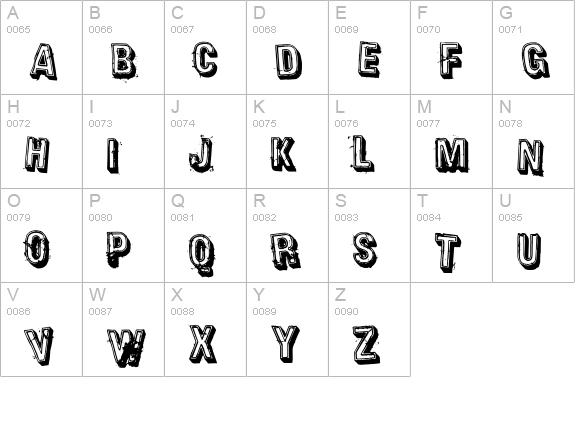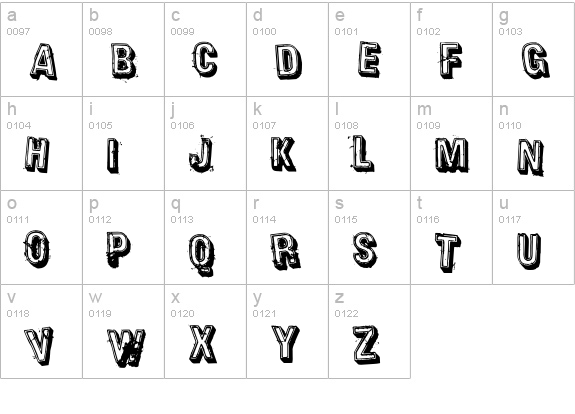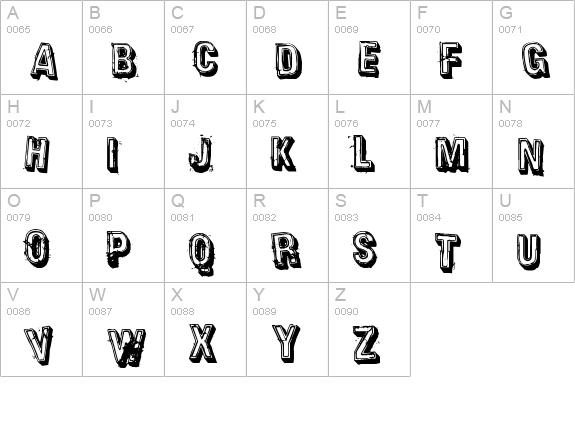
Heavy Rotation is a heavy, high-impact variant in the Heavy typeface family \xE2\x80\x94 well suited to high-impact headlines, posters, and display advertising.
Introducing Heavy Rotation, a bold and commanding font that will make your designs stand out from the crowd. This captivating typeface exudes strength and power, with its thick, robust letterforms that demand attention. Each character is meticulously crafted, featuring strong lines and sharp angles that give it a distinct and modern appeal. With Heavy Rotation, your designs will become a force to be reckoned with. Whether you're creating eye-catching posters, impactful headlines, or attention-grabbing logos, this font will make a lasting impression on your audience. Its versatility allows it to be used in various design projects, from branding and advertising to editorial and web design. But what sets Heavy Rotation apart is not just its remarkable aesthetics, it's also the fact that it is freely available to download at FontsMarket.com. That's right, this top-notch font can be yours without spending a dime. FontsMarket.com, a trusted source for high-quality fonts, offers Heavy Rotation as a free download, making it accessible to all designers, regardless of their budget. So why wait? Take your designs to the next level with Heavy Rotation. Download this exceptional font today and unlock its unlimited potential. Let your creativity soar and watch as your designs make a lasting impact. With Heavy Rotation, the possibilities are endless.